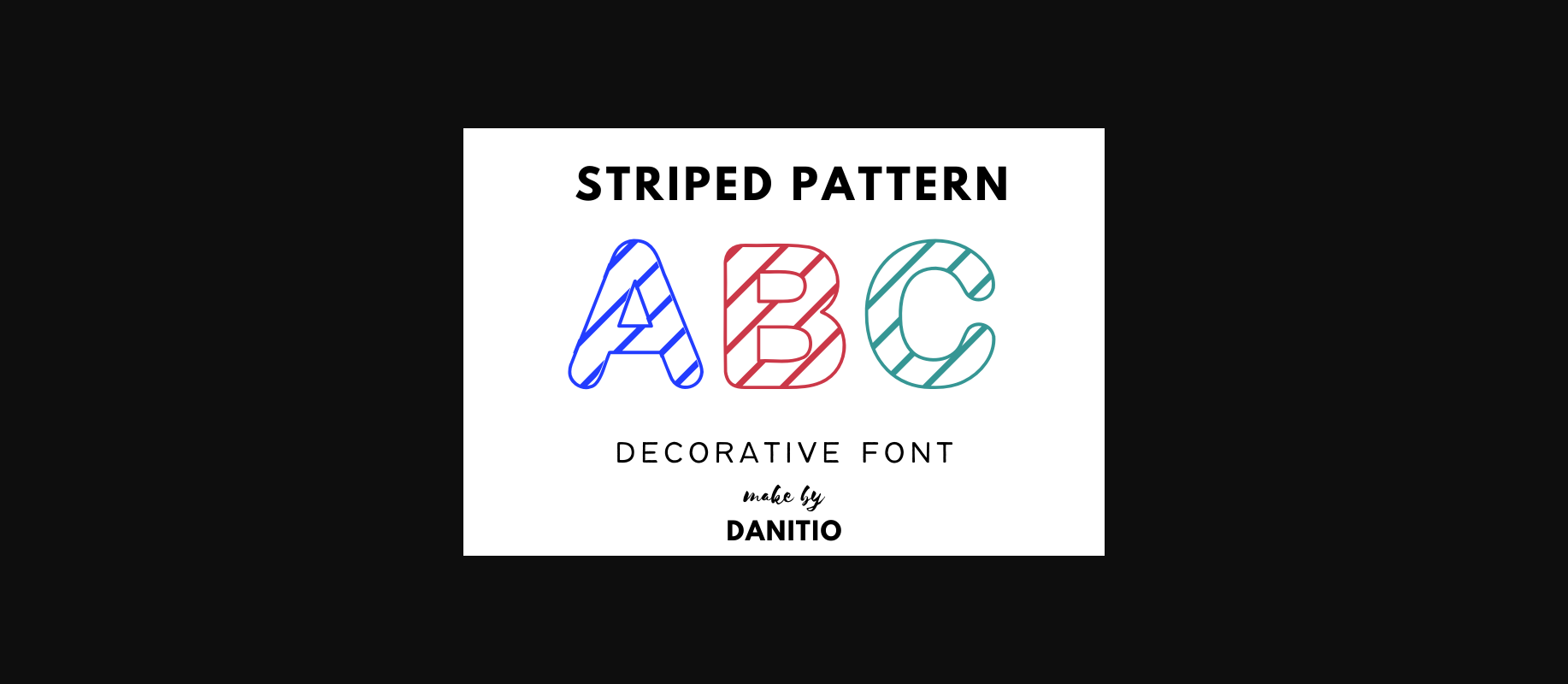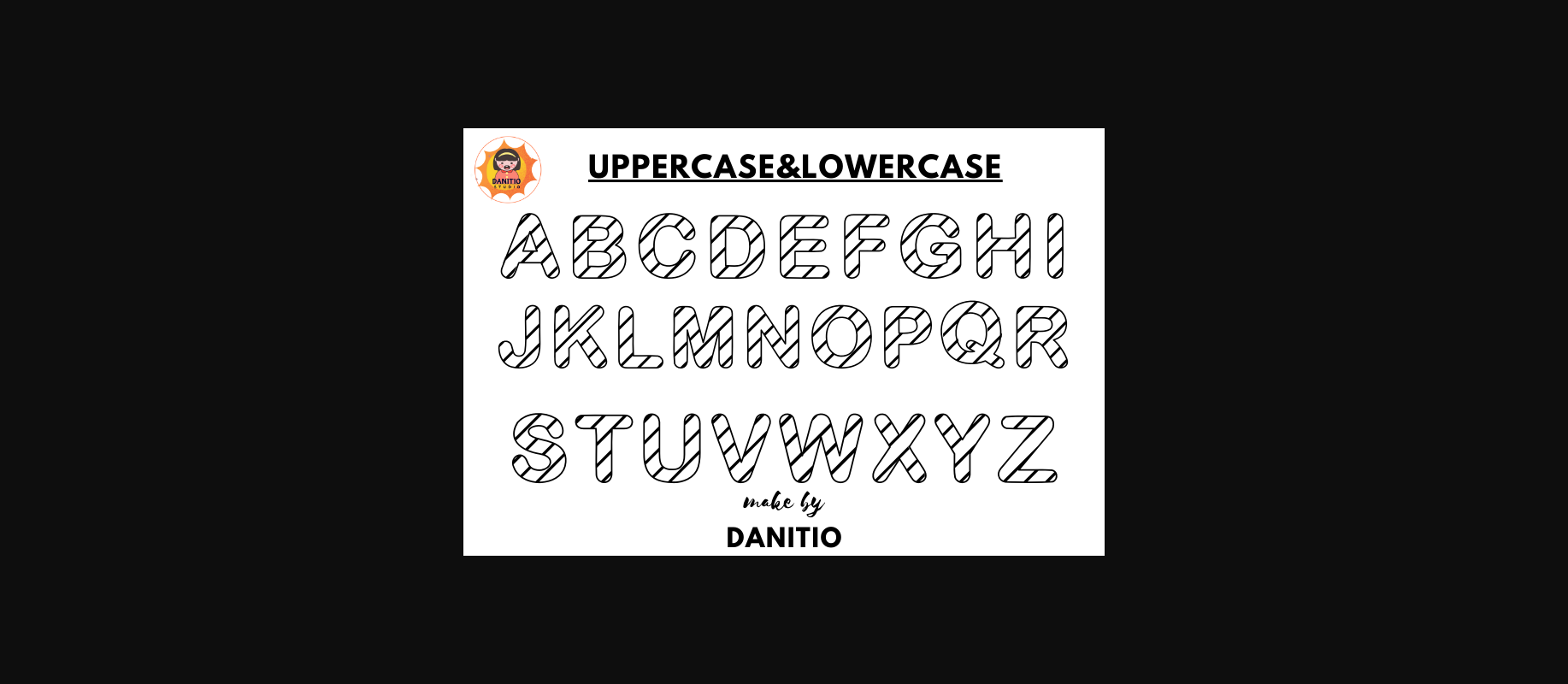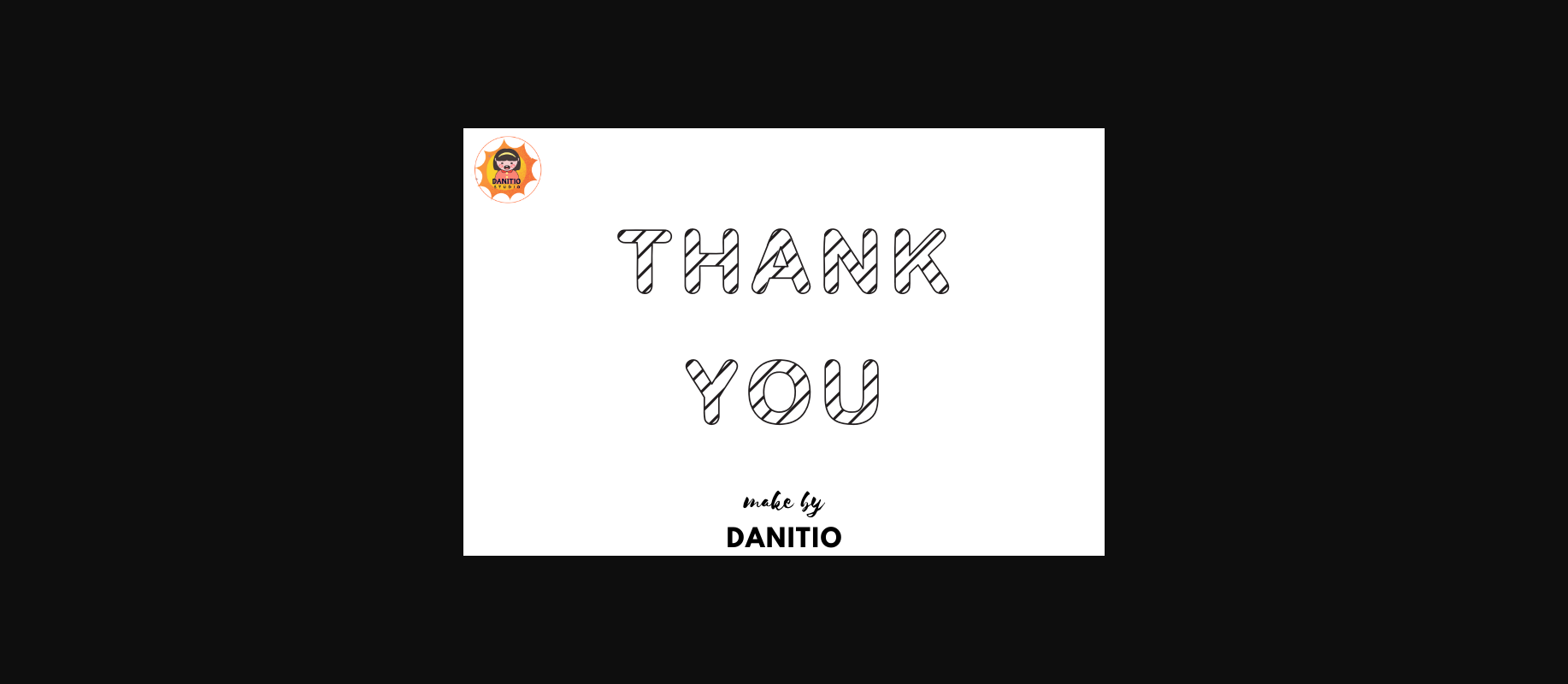
Striped Pattern Font
About Striped Pattern Font
Striped Pattern is a decorative font with stripes on the letters which makes it cute and cool. This font can be used on various products such as shirts, mugs, tote bags, stickers, and other products.